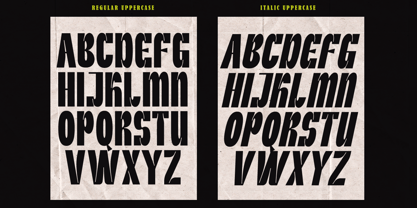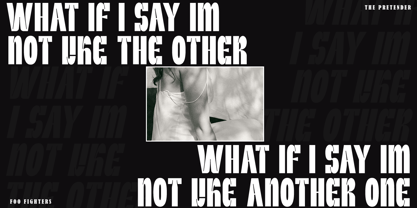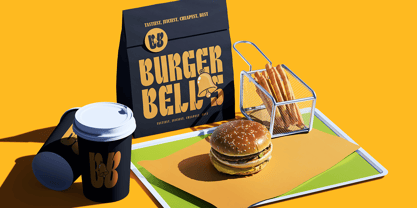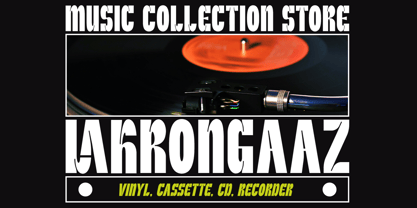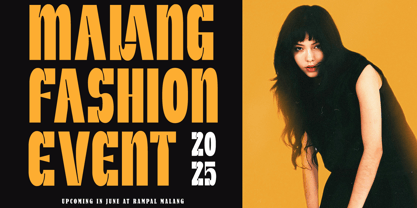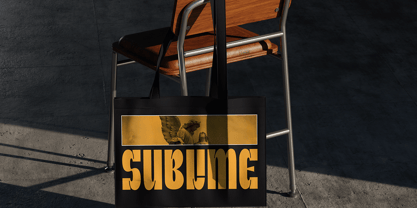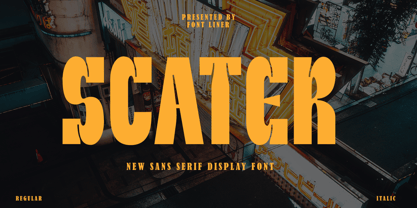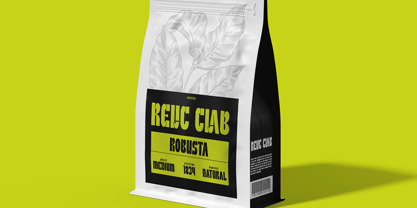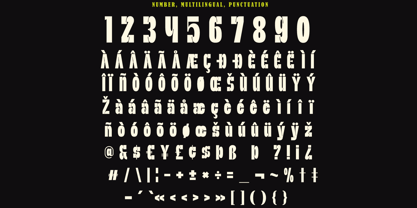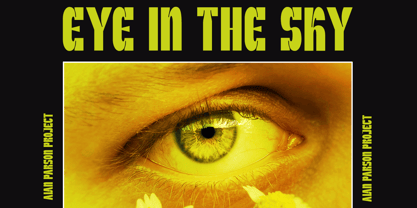
Scater
by Font Liner
The Scater Font Family was designed by Ghina Luthfiarieska and published by Font Liner. Scater contains 2 styles and family package options.
Scater is a bold sans serif font , carefully crafted for maximum visual impact, this font boasts a tall, compressed structure with strong geometric shapes and vintage undertones. Its commanding presence makes it perfect for posters, branding, editorial titles, and retro-inspired designs, bringing a confident and edgy vibe to any project.
Scater Included :
- Scater
- Scater Italic
- Ligatures Character
- Multilingual Support